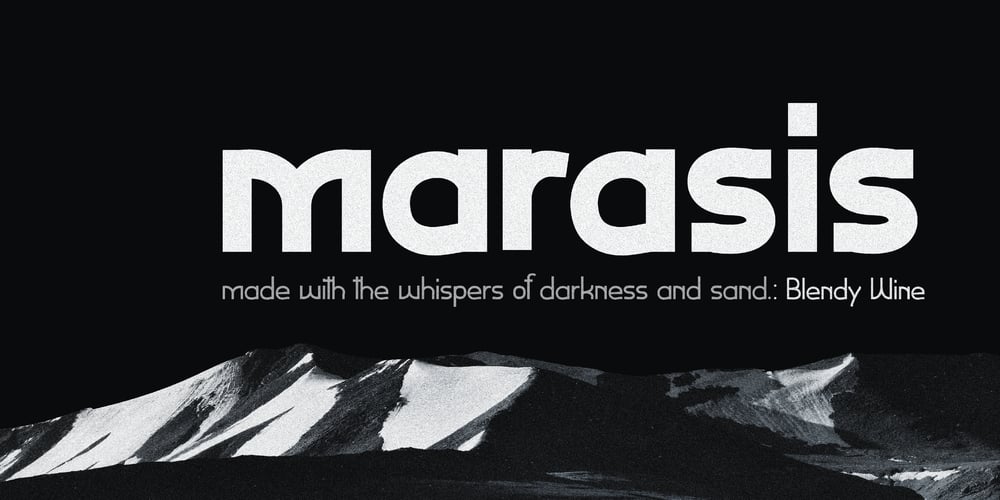
Marasis Font Family was designed by Aekkaluk Sukphed and published by Blendy wine. Marasis contains 8 styles and family package options. made with the whispers of darkness and sand.